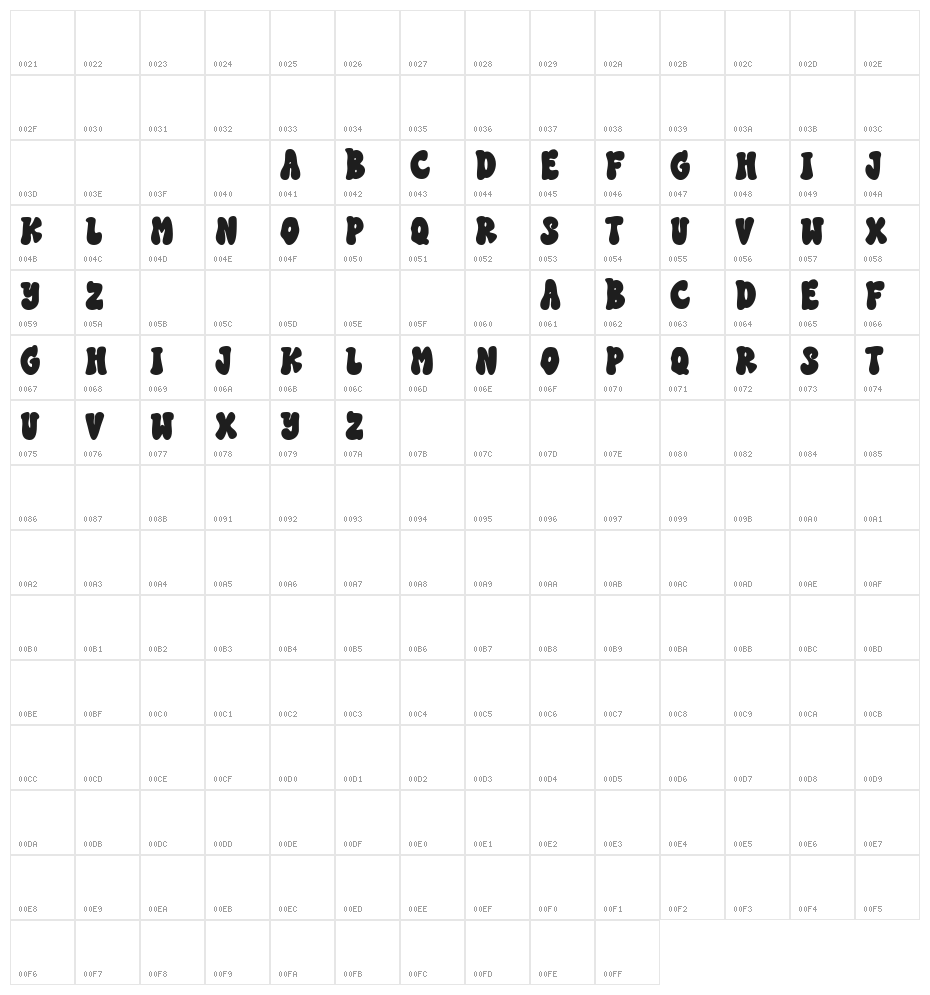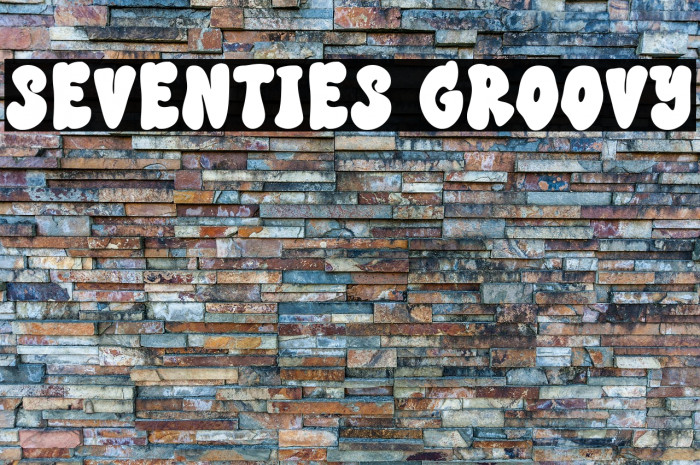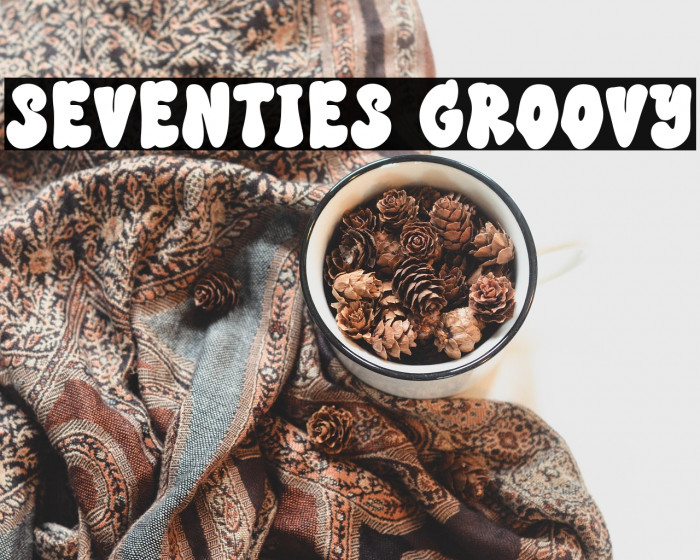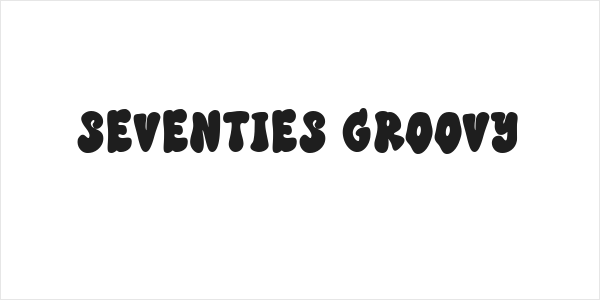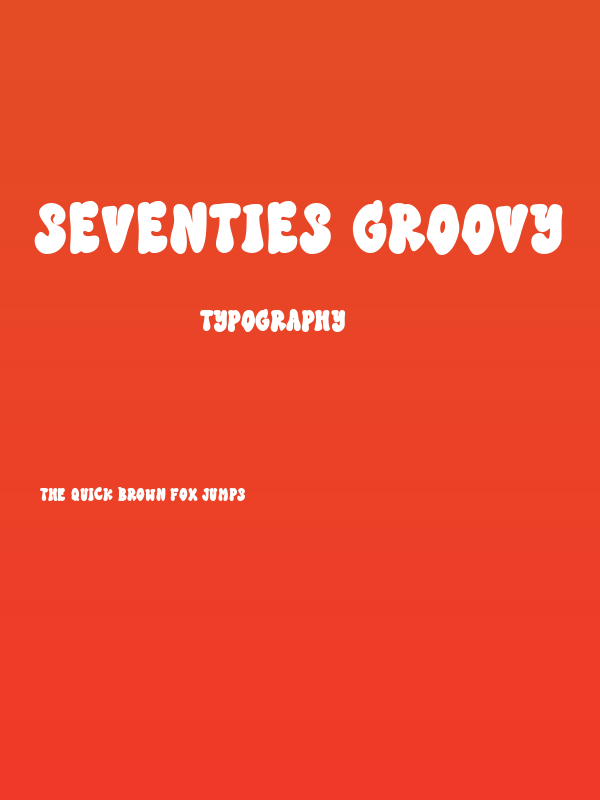
SEVENTIES GROOVY Font
SEVENTIES GROOVY Description
This font exudes a playful and retro vibe, reminiscent of the 1970s with its bold, rounded, and bubbly letterforms. The characters are thick and have a whimsical, groovy appearance, making them stand out with a distinct personality. The exaggerated curves and soft edges give it a friendly and approachable feel, perfect for capturing attention. Its unique style is both nostalgic and eye-catching, ideal for projects that aim to evoke a sense of fun and creativity. The font's design is consistent across all characters, maintaining a uniform look that enhances its visual appeal.
| Proposed Projects | Ideal for retro-themed designs, posters, album covers, and playful branding. |